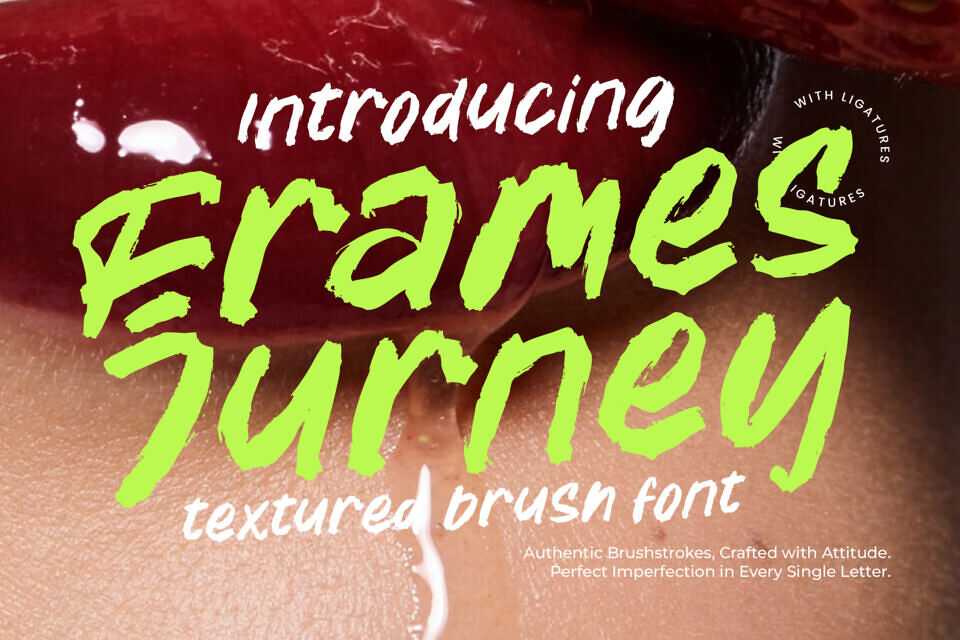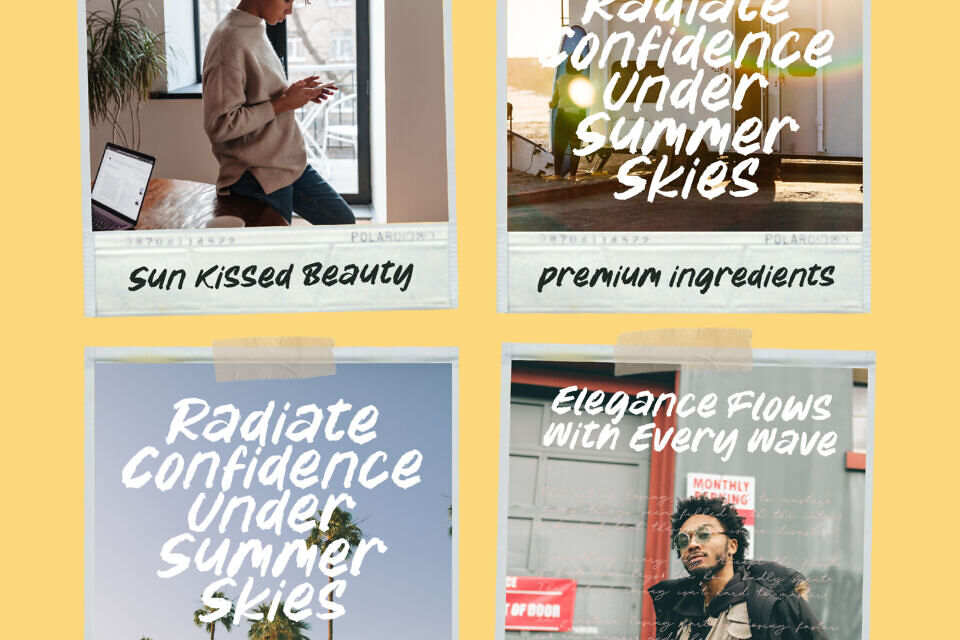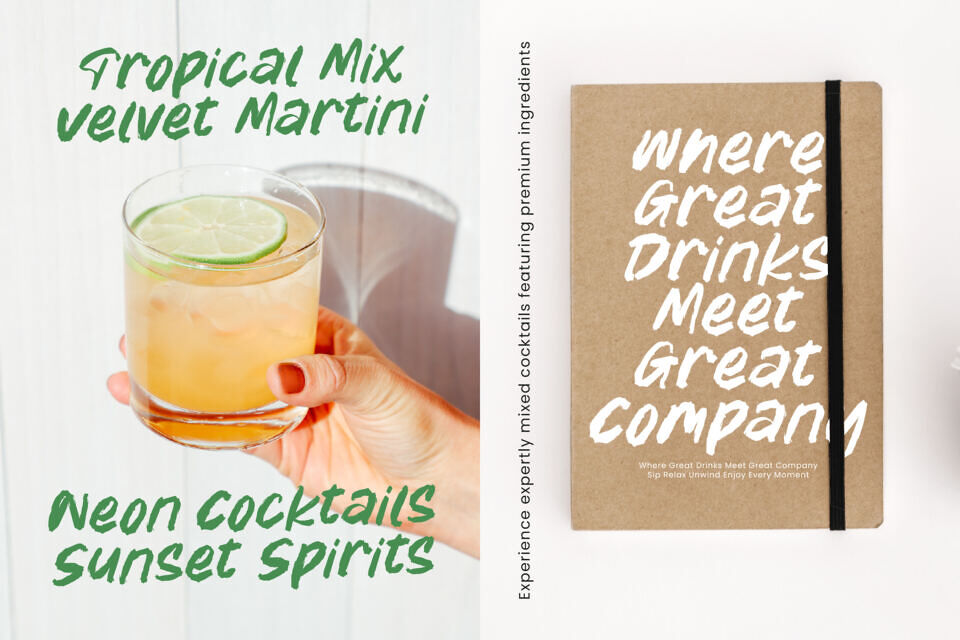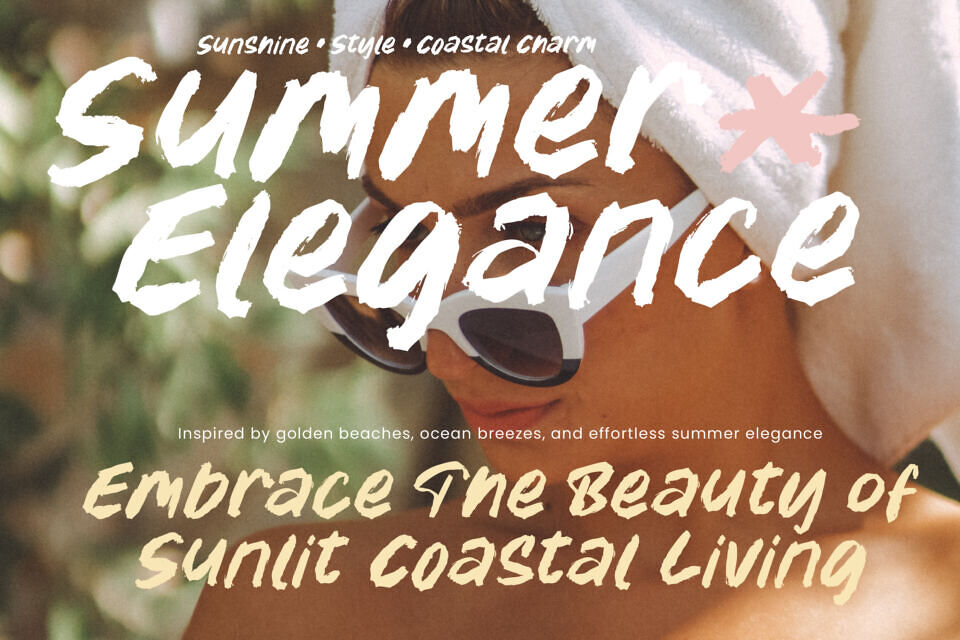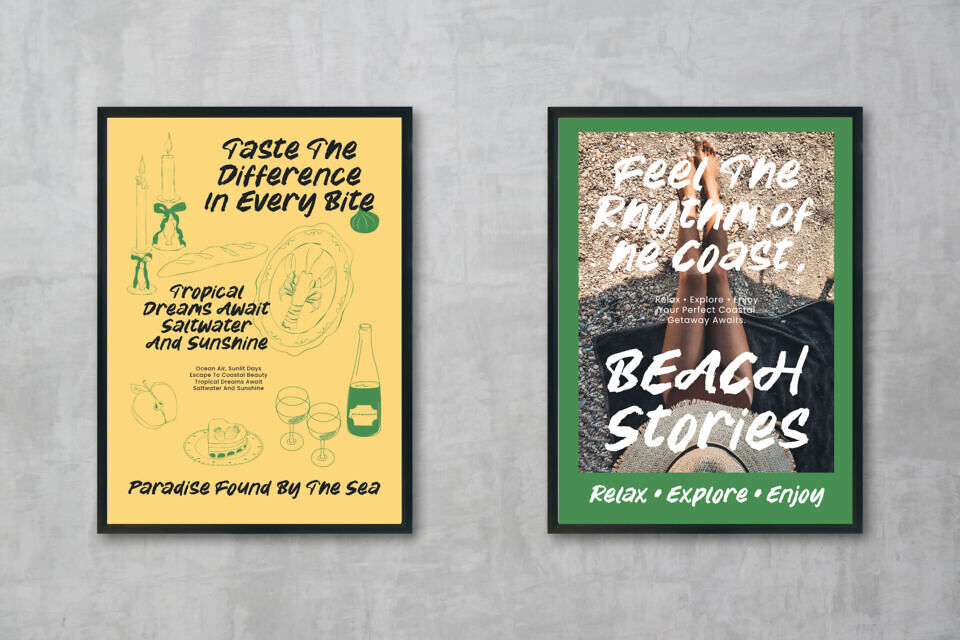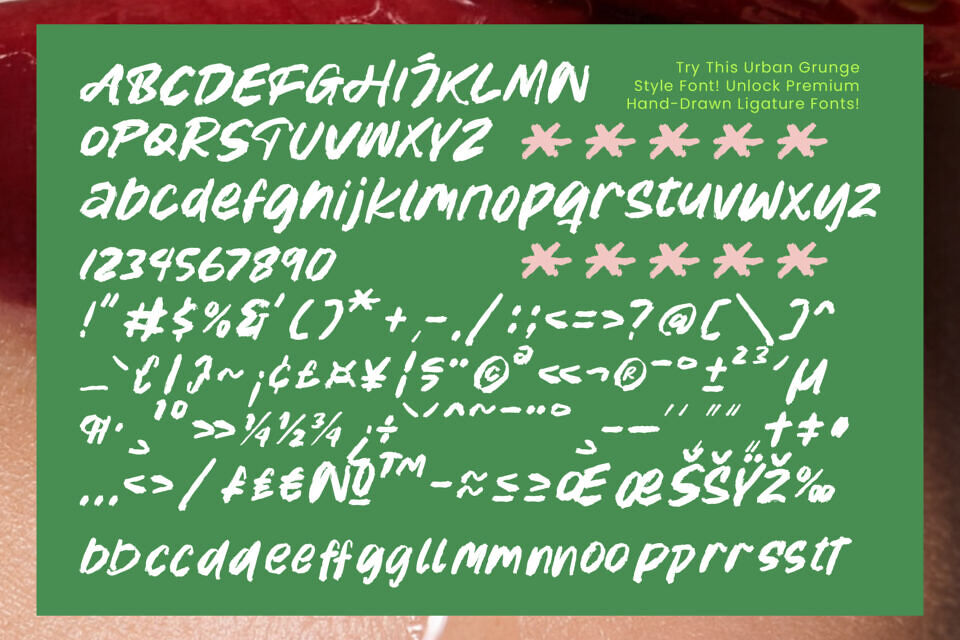
Frames Jurney is a textured font that embodies the spirit of hand-painted lettering. Its natural brushstrokes, rough edges, and imperfections give designs a genuine, handcrafted feel. This font is perfect for creators seeking bold, adventurous typography with excellent readability.
Its dynamic texture creates a sense of movement, making it ideal for various projects, from branding to editorial layouts, adding a confident, artistic touch that grabs attention with its modern and authentic aesthetic.